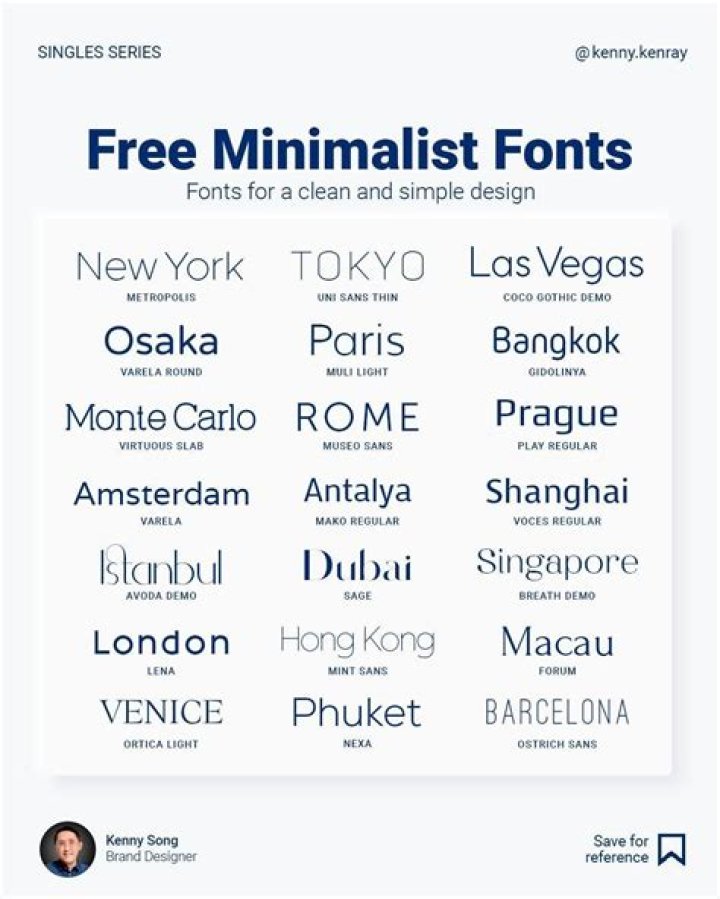
Minimalist font - How To Discuss
Rachel Hickman Minimalist font
What is the basic font? Basic resources. Arial, Times New Roman, Verdana, etc., the names of these standard fonts are known to anyone using a Windows or Mac computer. These basic fonts have many advantages such as popularity, cross-platform support, web security, etc.
What is the basic font called
17 basic fonts 1) Serif. Serif fonts are fonts that consist of lines with small marks or lines at the ends. 2) sans serif. Sans serif fonts are single-line fonts. They don't have those little ornaments that they have. 3) screen.
What is the basic font used
A guide to common resources. These are just some of the most common fonts you'll encounter when working with text. Take a look at all these elements first and think about how to distinguish them from each other. Each image refers to additional information. Times New Roman. This is the most widely distributed police force in the world. This is a medium serif font.
What is the most common font type?
Serif fonts are the most commonly used fonts. Serif fonts are indicated by a small trim at the end of each letter. Serif fonts are most often used in trade publications such as newspapers, magazines, and books.
How do I choose a font?
Select the text tool on the toolbar or open the text toolbar. Click a font name in the tool options bar or text bar. The font menu opens. Choose a font. You can select a font first and then add text, or you can select existing text and replace it with the font you want to use.
What is a typical font?
Font Use a standard readable font. Times / Times Roman, Helvetica and Arial are typical fonts. The font size must be 10 (points) to a maximum of 12 (points). NEVER use a script style font.
What is the best font for text?
Arial Arial Black Tahoma Trebuchet MS Verdana Gothic Century Geneva Lucida Lucida Sans Lucida Grande.
What is the basic font size
Dot (font) In letterpress printing, a dot is the smallest unit of measurement. Used to measure font size, line spacing, and other elements on a printed page. The size of the dots has varied throughout the history of printing.
What is a normal font size?
"normal" font size (11 or 12 point Roman era, 10 or 11 footnotes. The court requires a specific font of a certain size with a specific line height. The default font for college paper is 12 fonts.